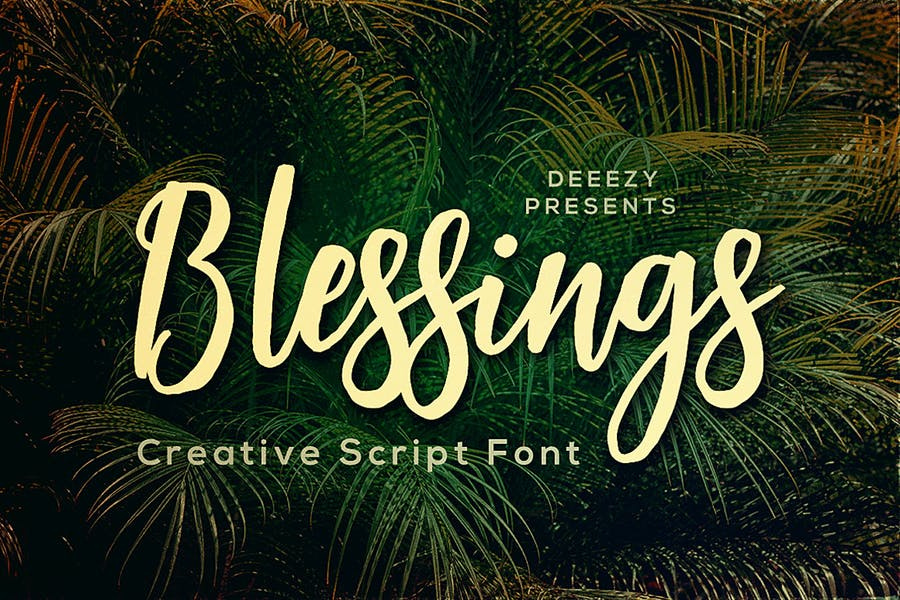
Blessings Script Font
Blessings Script Font is perfect for spiritual center branding, religious event invitations, faith-based organization communications, inspirational greeting cards, prayer book design, church signage, gratitude journal covers, and meaningful blessing ceremonies.
What makes Blessings Script Font exciting is its sacred elegance that embodies spiritual grace and divine inspiration with heartfelt authenticity and peaceful reverence. The font features flowing letterforms with gentle curves and sacred character variations that evoke handwritten prayers, illuminated manuscripts, and the tender artistry of spiritual expression and divine gratitude. Its distinctive spiritual styling and blessed appeal communicate faith, gratitude, and divine connection, making every message feel touched by grace and blessed by the peaceful beauty of spiritual devotion and sacred reverence.
The Blessings Script Font family includes regular weight with uppercase and lowercase letters, numerals, punctuation marks, and special characters. Premium versions often feature stylistic alternates and sacred flourishes that enhance the spiritual, reverent aesthetic perfect for faith-based and inspirational applications.
This sacred spiritual typeface brings instant reverence and faith-based credibility to any blessing-focused project. Blessings Script Font Free Download delivers exceptional results for religious organizations and spiritual businesses seeking to communicate divine grace, spiritual authenticity, and sacred beauty to faith communities and spiritually-minded audiences.
The reverent character of Blessings Script Font makes it particularly valuable for churches, spiritual retreat centers, and faith-based service organizations. Its excellent readability ensures spiritual messaging and sacred communications remain clear while maintaining the distinctive blessed aesthetic that appeals to congregations seeking authentic spiritual experiences and divine inspiration.
Faith-based marketers appreciate how Blessings Script Font effortlessly conveys spiritual authenticity and divine grace. The font's flowing proportions and sacred details create meaningful brand materials that establish spiritual connections with audiences who value faith traditions, divine blessing, and the graceful expression of spiritual devotion and sacred gratitude.
The versatile spirituality of this typeface extends to inspirational publishing, spiritual counseling, and faith-based education where sacred authenticity enhances spiritual credibility and divine appeal. Blessings Script Font Free Download provides creative professionals with an essential tool for developing memorable, spirit-driven designs that resonate with audiences who embrace spiritual faith, divine blessing, and the flowing beauty of sacred script in their spiritual and inspirational communications.